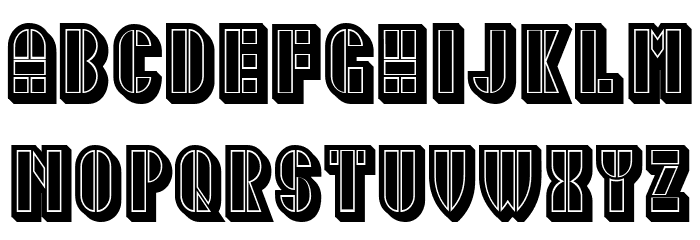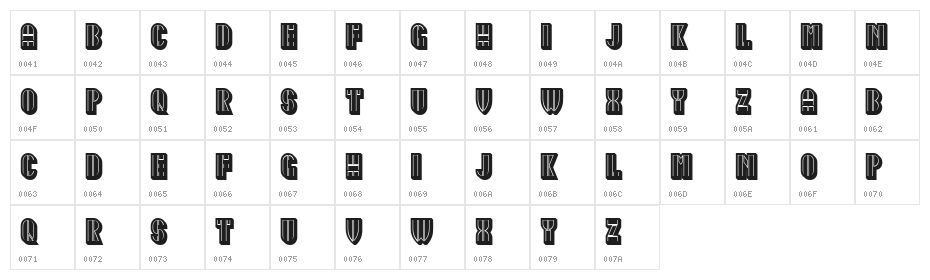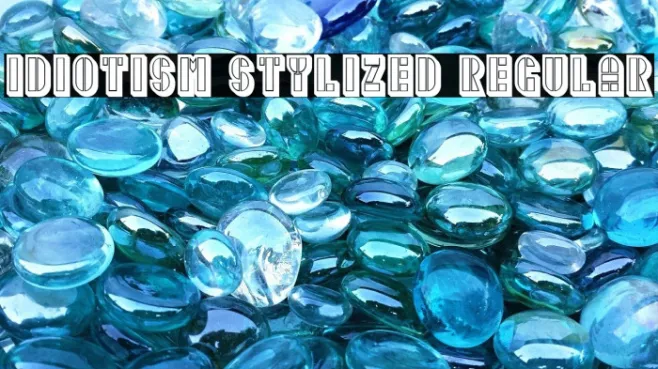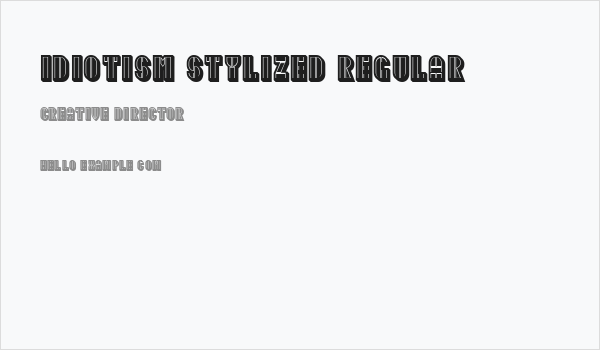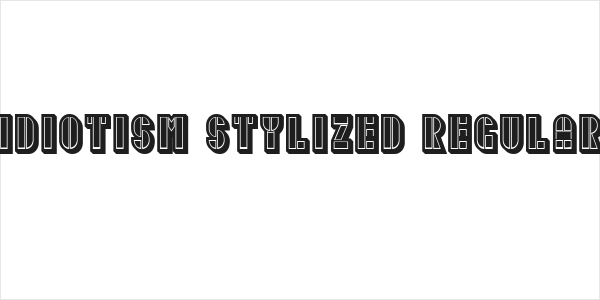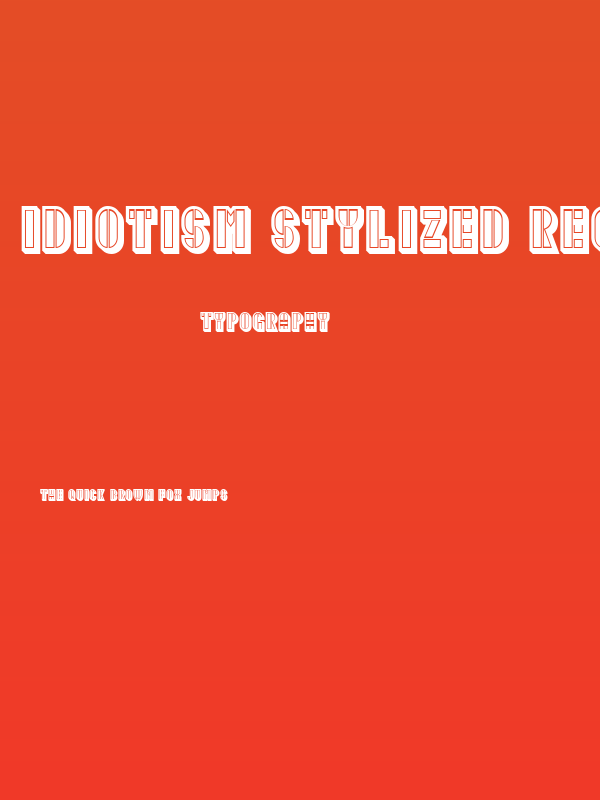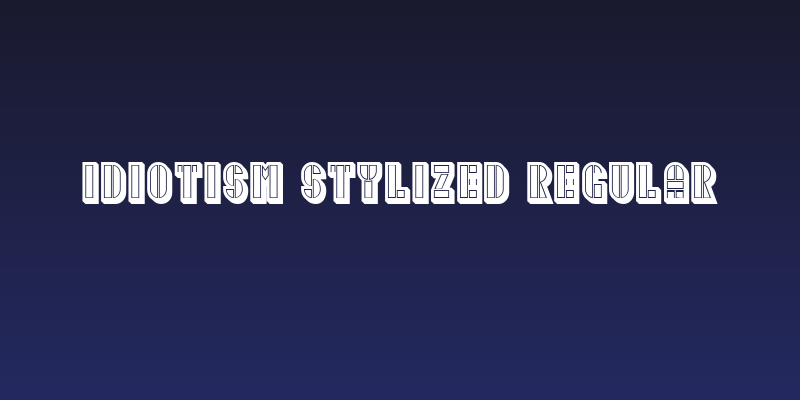
Idiotism Stylized Regular Font
Idiotism Stylized Regular Description
This font features a bold, geometric design with a distinct three-dimensional effect. Each character is crafted with sharp angles and thick lines, creating a sense of depth and structure. The letters are outlined, giving them a striking appearance that stands out on any page. The style is reminiscent of architectural blueprints, with a modern twist that makes it suitable for contemporary designs. The font's unique aesthetic is both eye-catching and memorable, making it ideal for projects that require a strong visual impact.
| Proposed Projects | This font is perfect for branding, posters, headlines, and any design project that requires a bold statement. Its unique style makes it suitable for modern architecture firms, tech startups, or any creative industry looking to make an impact. |